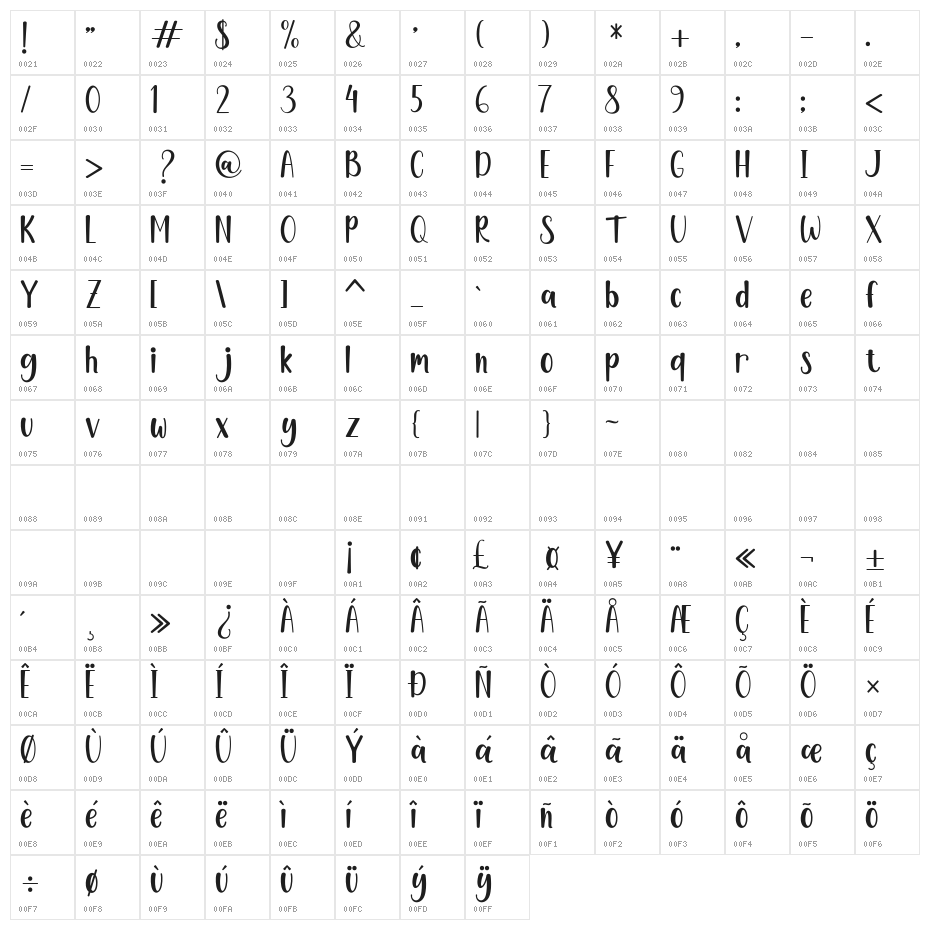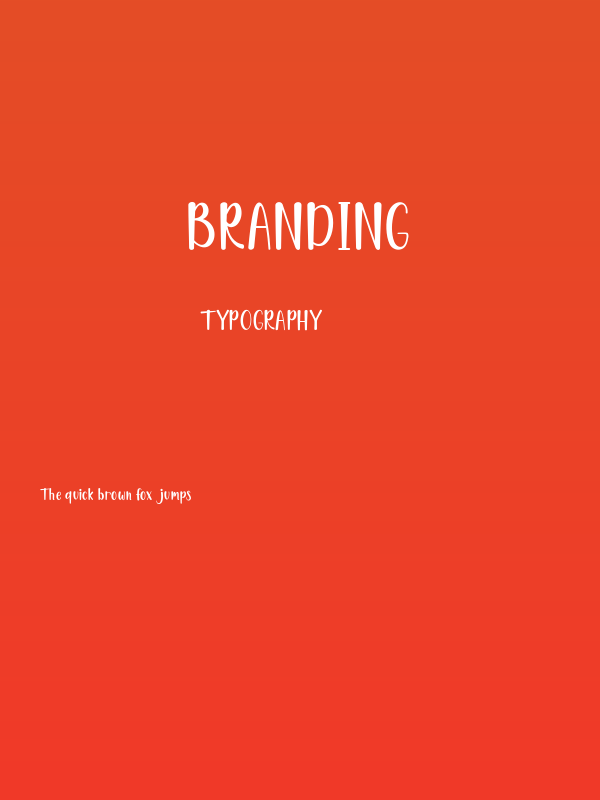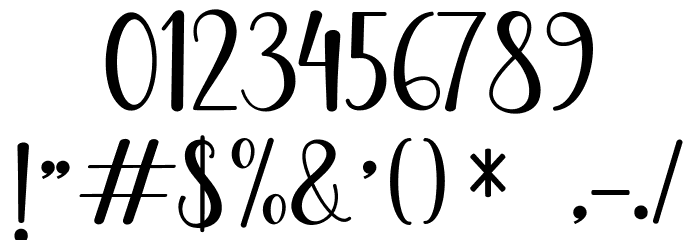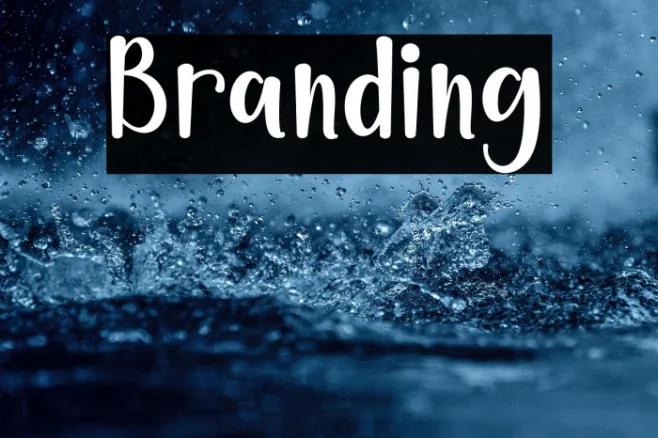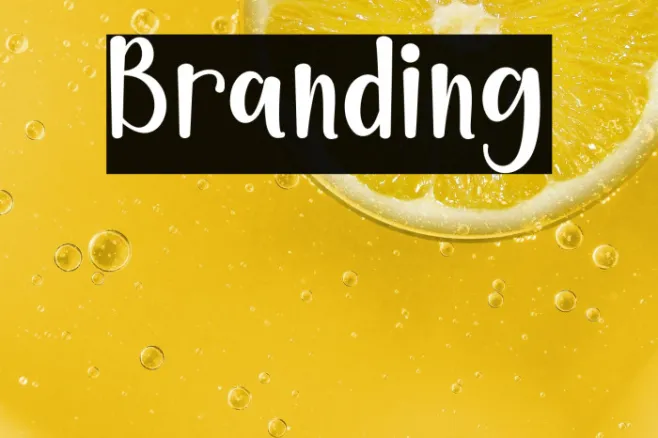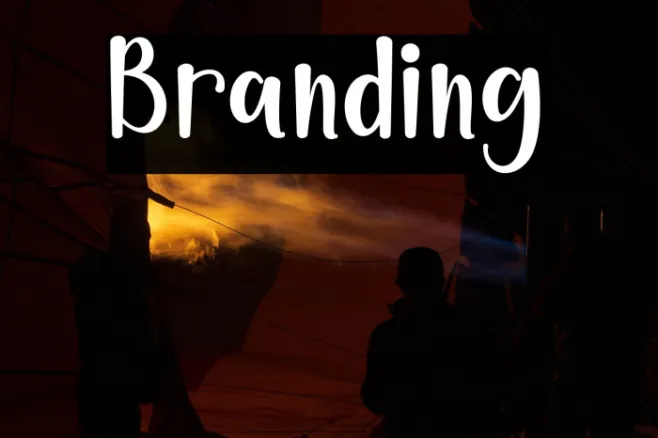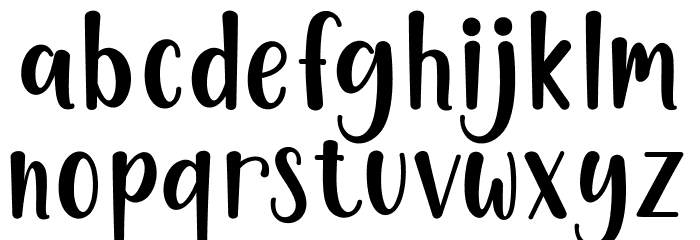
This font features a playful and modern handwritten style, characterized by its flowing and slightly irregular strokes. The uppercase letters are tall and slender, with a whimsical touch that adds personality. The lowercase letters maintain a consistent style, with rounded forms and a casual feel. Numbers are clear and easy to read, matching the overall aesthetic. Special characters are creatively designed, adding to the font's charm. The font's unique style makes it suitable for projects that require a personal and friendly touch.
| Use Case | Logos, Headlines, Invitations |
| Proposed Projects | Ideal for branding, invitations, greeting cards, and social media graphics. |